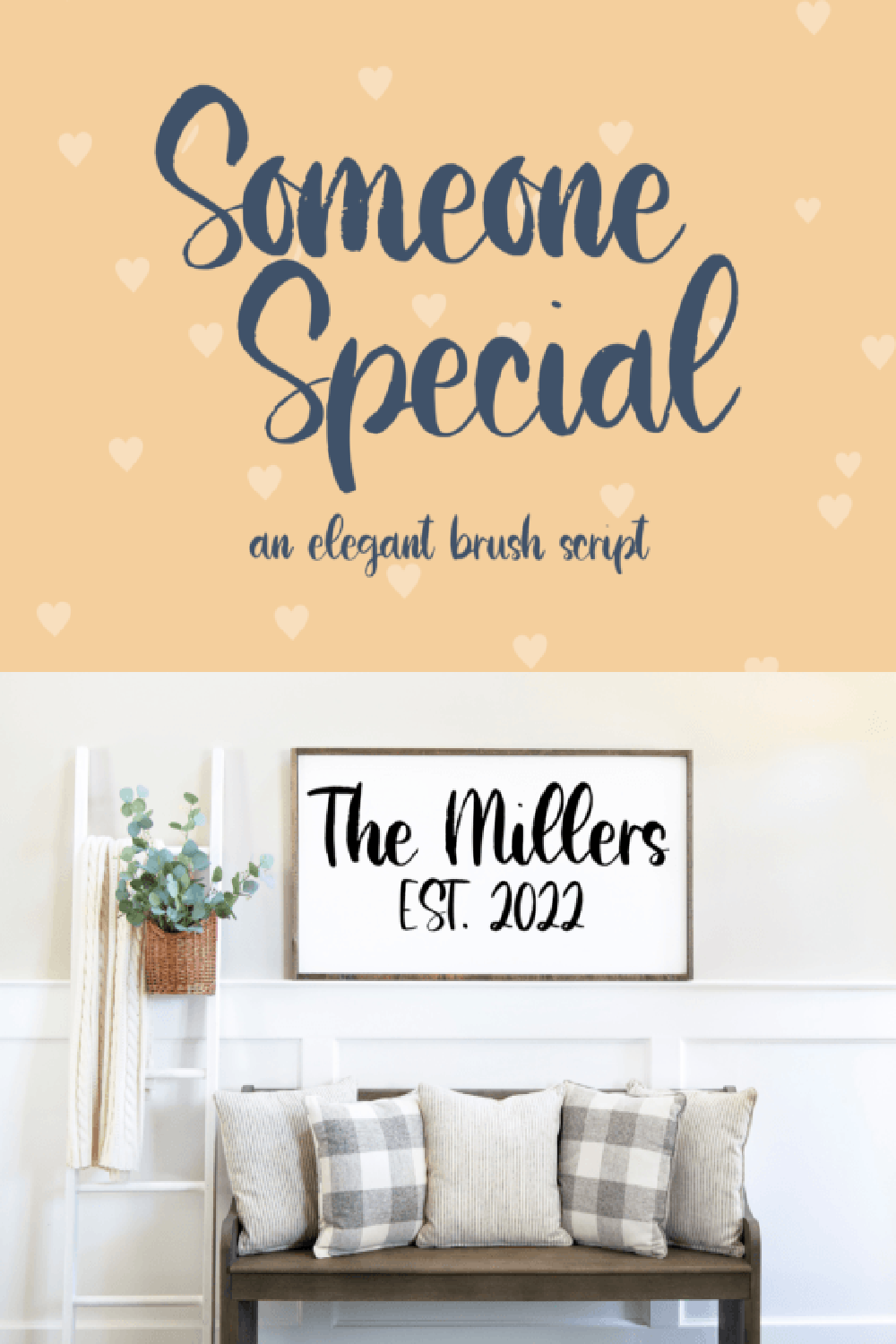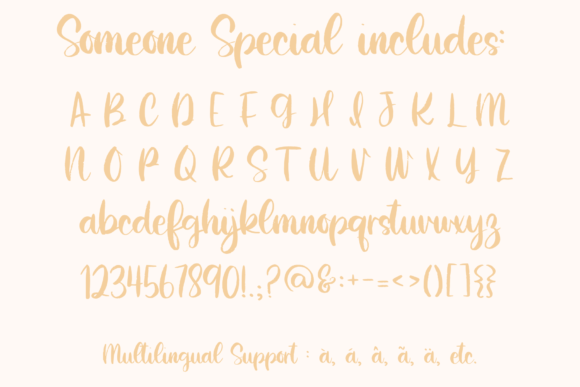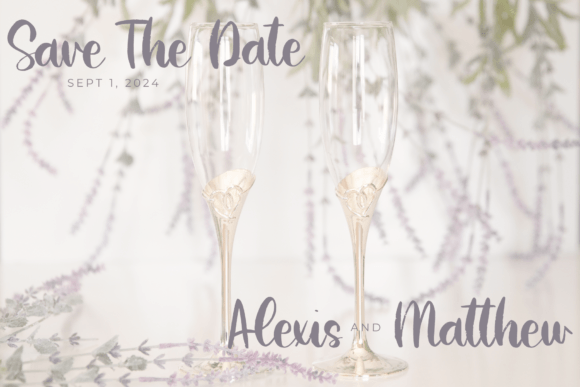
Someone Special Font: Elegant Wedding Script Typography
About the Someone Special Font
From logos to headlines, the Someone Special Font is the perfect choice for making a lasting impression. This elegant brush script wedding handwritten font is perfect for wedding and bridal shower invitations, greeting cards, t-shirt designs, stickers, social media, crafts, and much more.
Someone Special Font Usage Examples